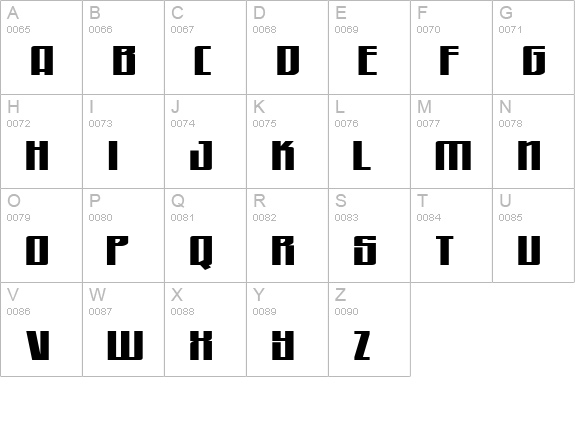
WorkingMan Extended Font Details
WorkingMan Extended is a distinctive, extended-width variant in the WorkingMan typeface family \xE2\x80\x94 well suited to design and typography projects.